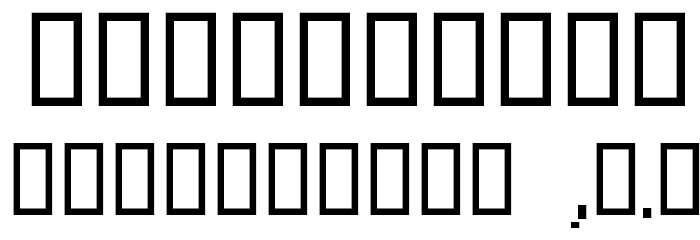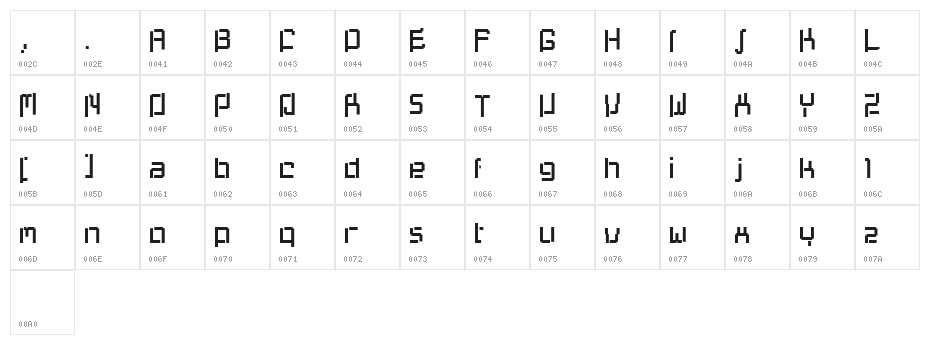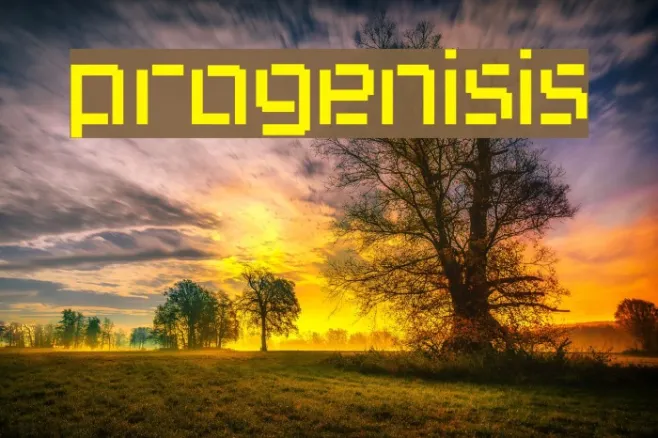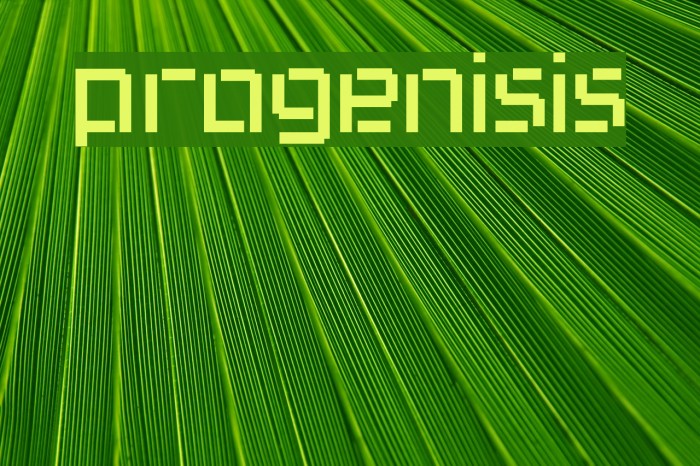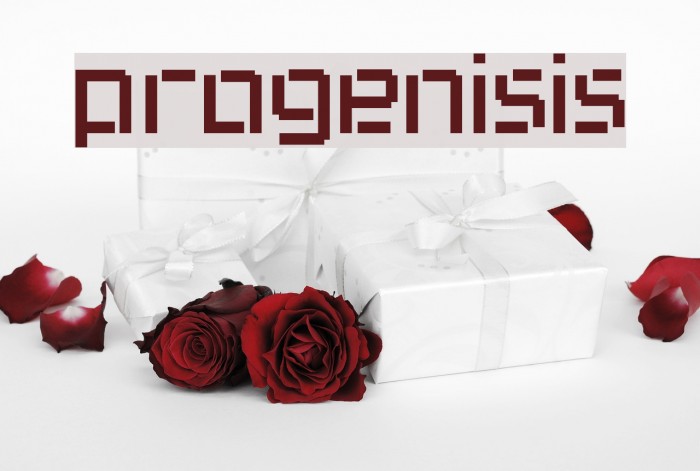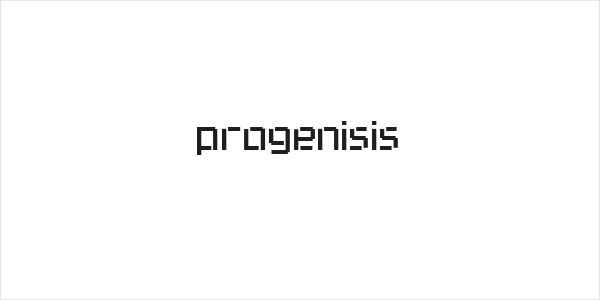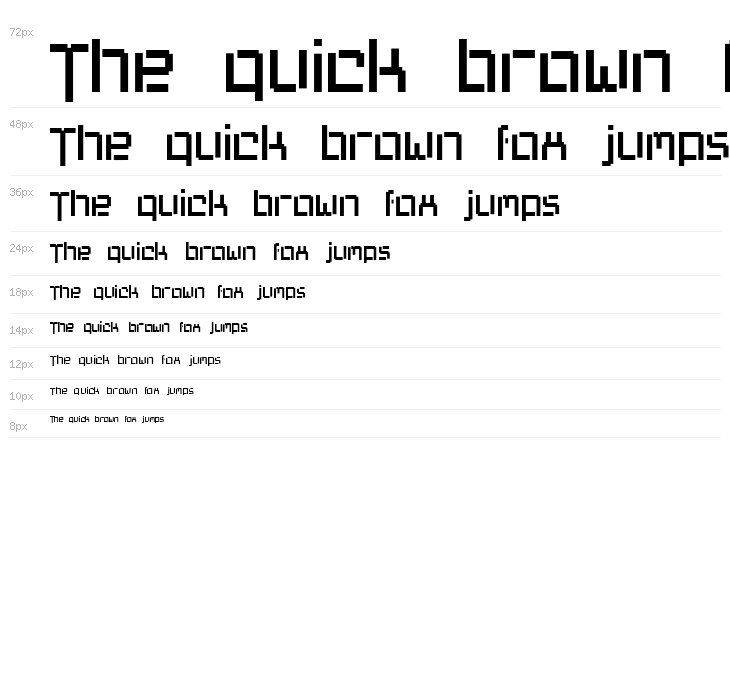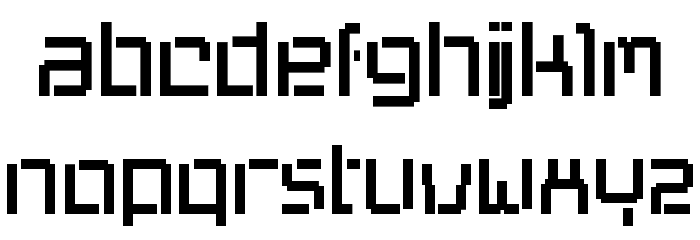
progenisis Font
progenisis Description
This font features a distinct pixelated, blocky style reminiscent of early digital displays and retro video games. Each character is constructed with a uniform grid-like structure, giving it a highly geometric and modular appearance. The uppercase and lowercase letters maintain a consistent height, contributing to a cohesive visual rhythm. The numerals and special characters follow the same design principles, ensuring uniformity across all glyphs. This font's design is both nostalgic and modern, making it suitable for projects that require a tech-savvy or vintage digital aesthetic.
| Overall Style | Modern, Vintage |
| Proposed Projects | Ideal for video game design, tech-themed posters, digital art projects, and retro-style branding. |